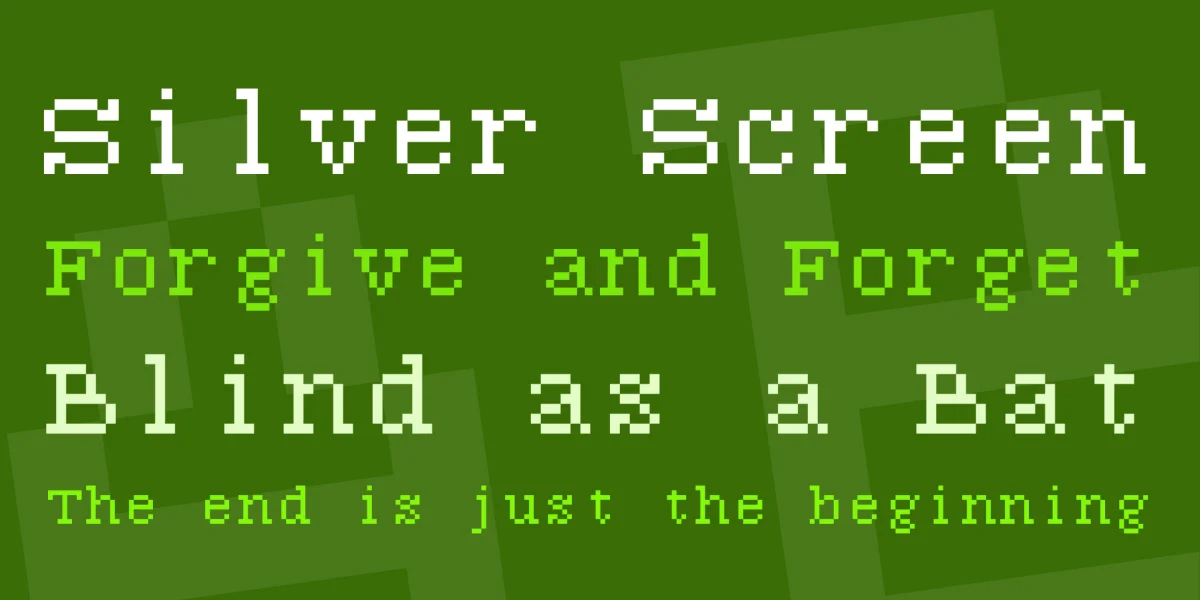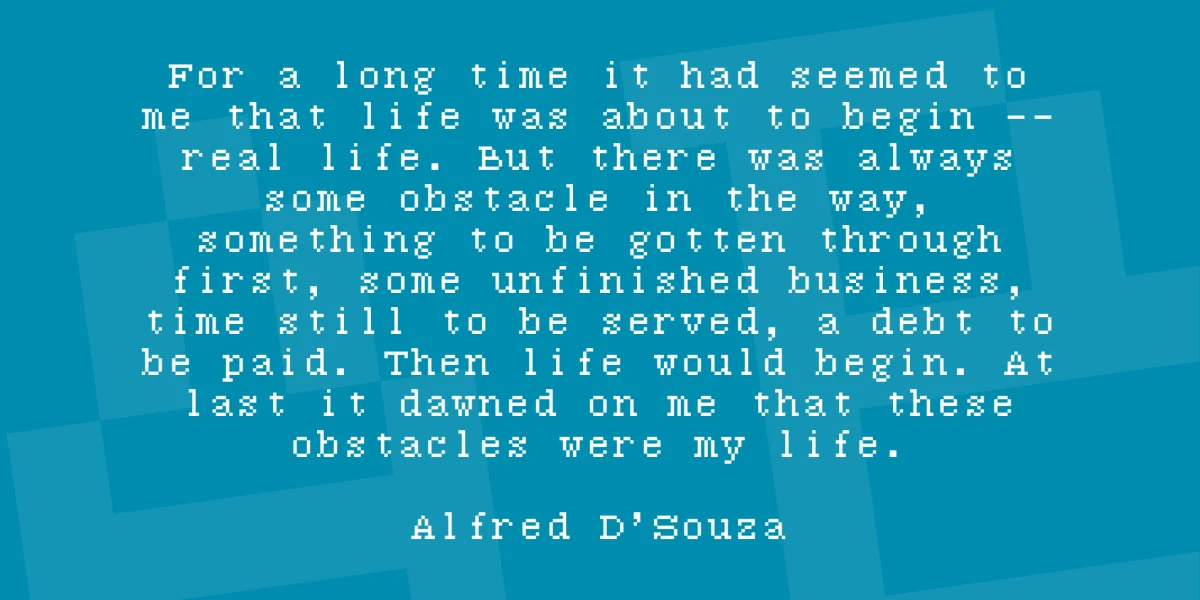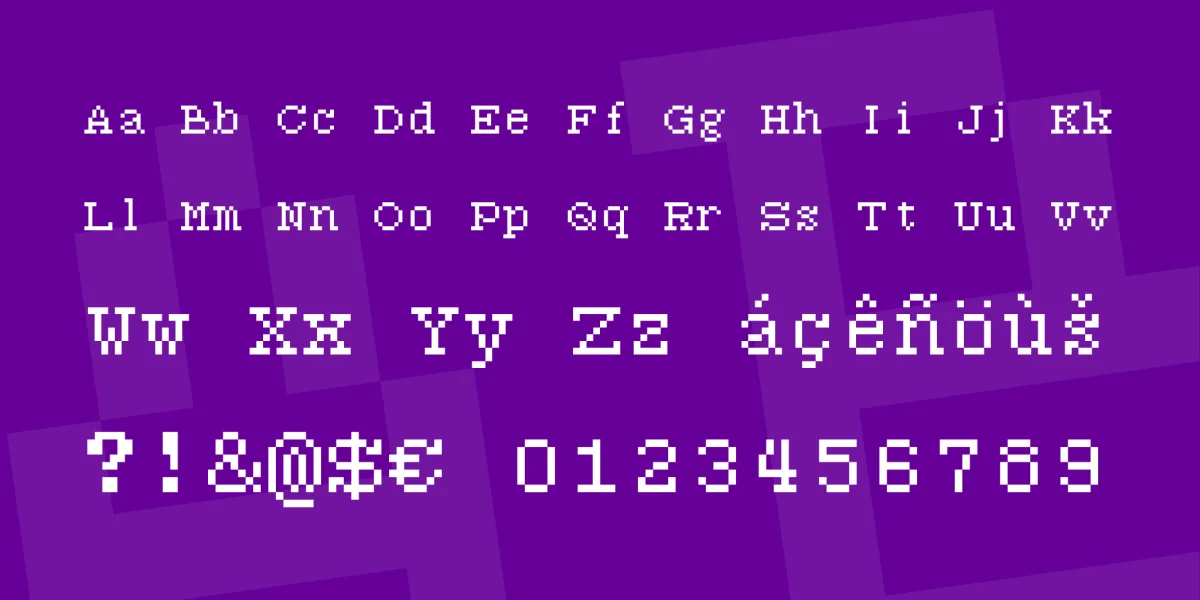
A unicode pixel font made with the online font-tool FontStruct.com (Also available here). As of the latest update this font now contains 6814 characters.